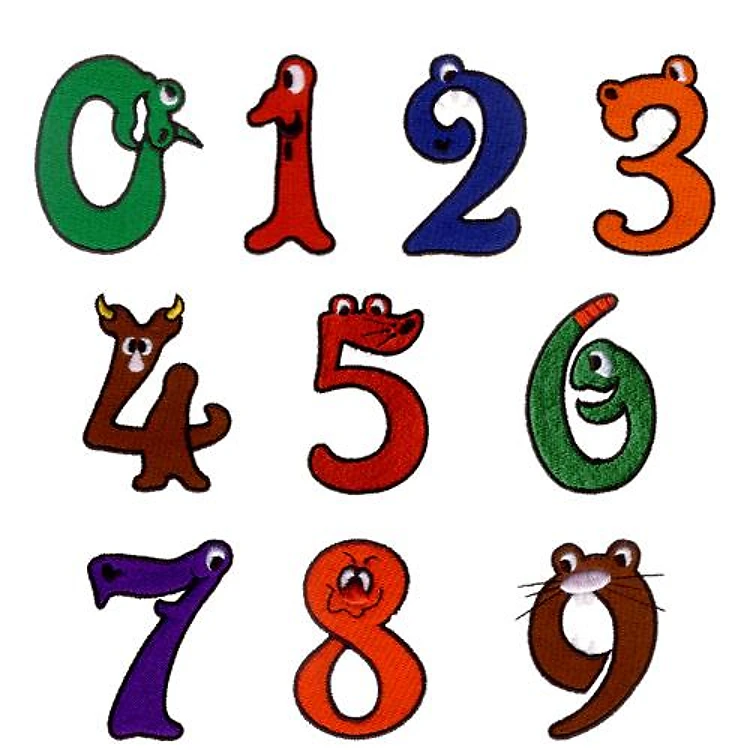
Playful decorative numbers embroidery font features vibrant, cartoonish designs of 0 to 9, perfect for children's clothing or playful decor. Available in home format with PES, DST & 10 other formats.